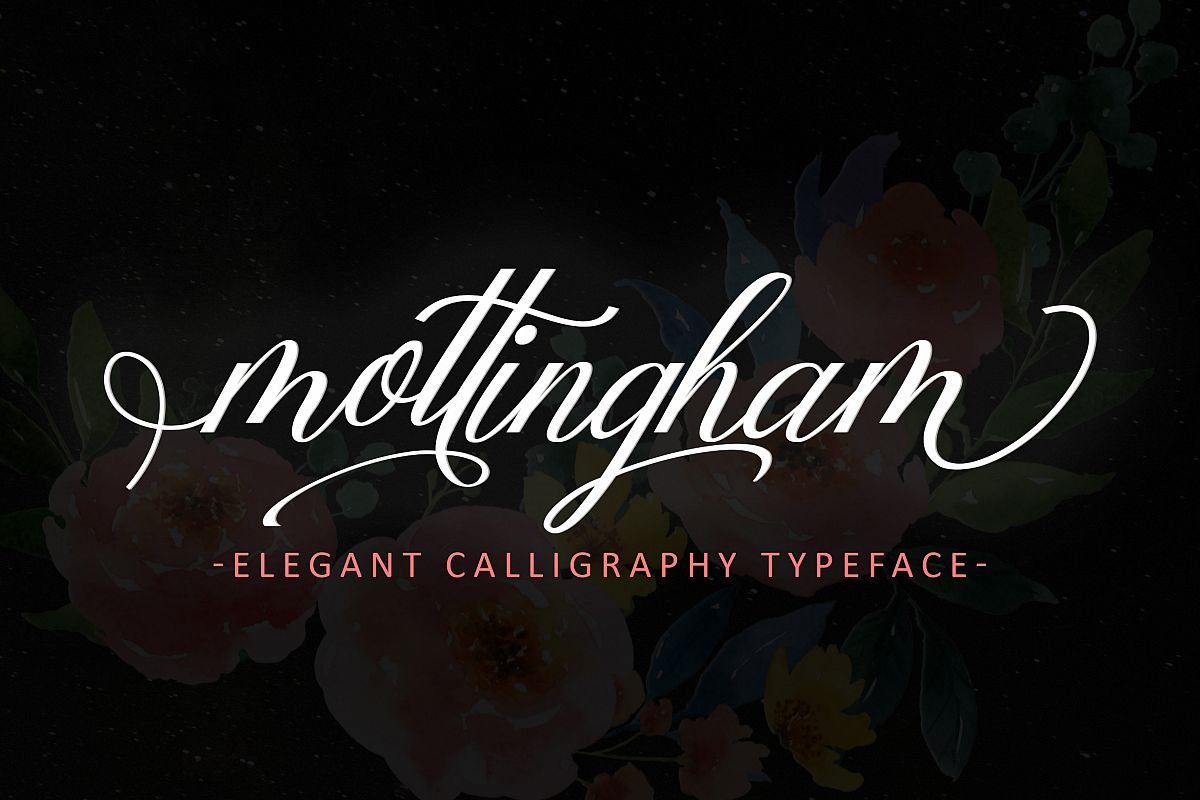
Mottingham Elegant Calligraphy Typeface
Mottingham Script is handwritten stylish copperplate calligraphy fonts, combines from copperplate to contemporary typeface with a dancing baseline, classic and elegant touch. Can be used for various purposes.such as headings, signature, logos, wedding invitation, t-shirt, letterhead, signage, lable, news, posters, badges etc.
Mottingham Script features 338 glyphs alternate characters. Including initial and terminal letters, alternates, ligatures and multiple language support.